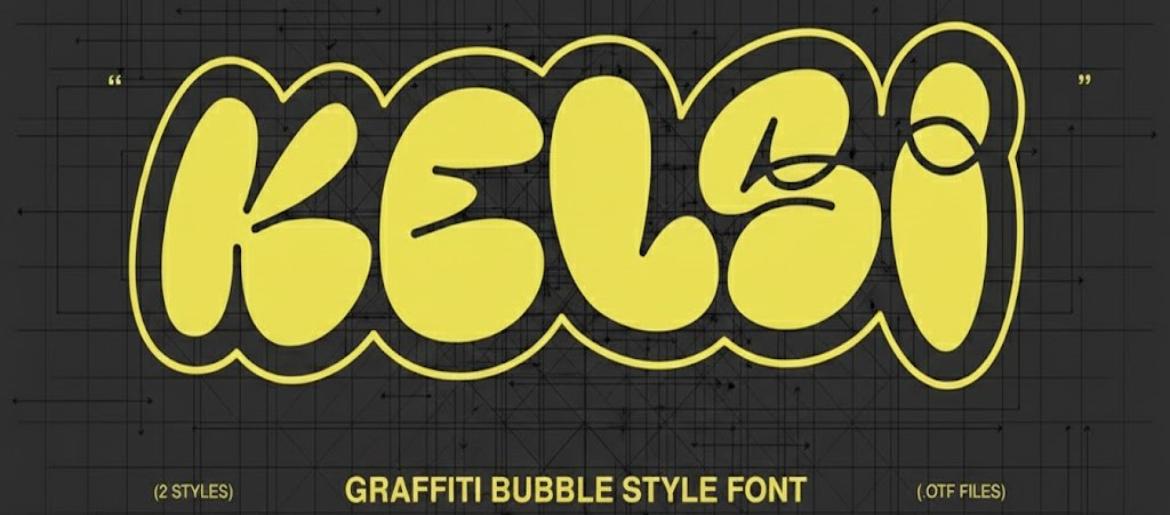
Kelsi Font
Kelsi Font is a graffiti bubble display typeface designed by Misha Vlasov, featuring rounded, inflated letterforms and energetic street-style personality. It is ideal for urban branding, posters, stickers, merchandise, and expressive headline typography. Its playful structure and bold visual impact help designs stand out while fitting perfectly within creative and street-inspired free fonts collections.
➤ Font Name: Kelsi
➤ Designer: Misha Vlasov
➤ Style: Bubble